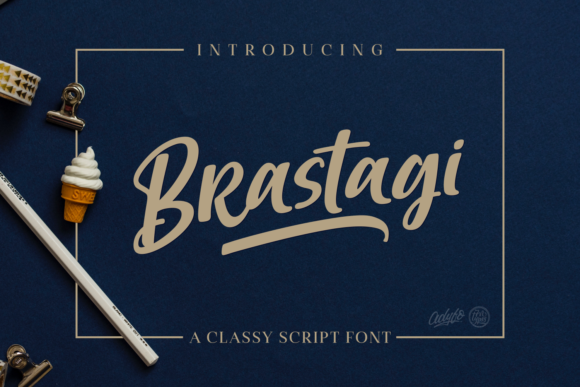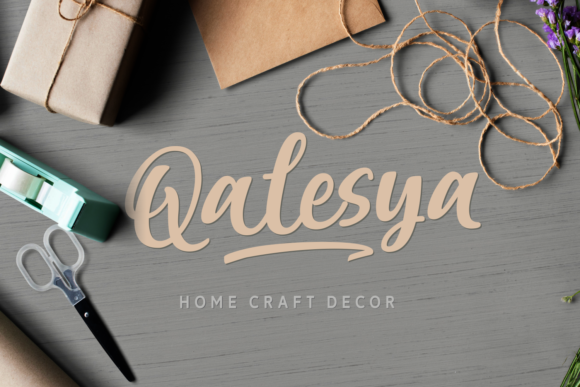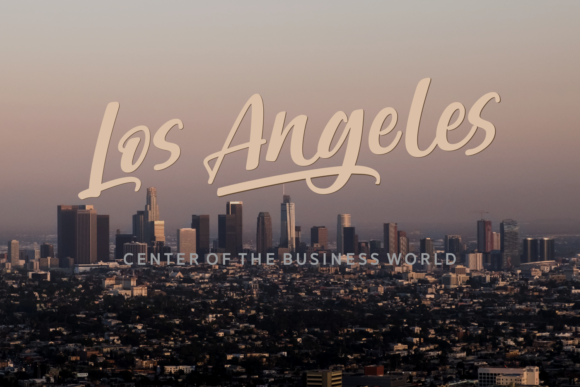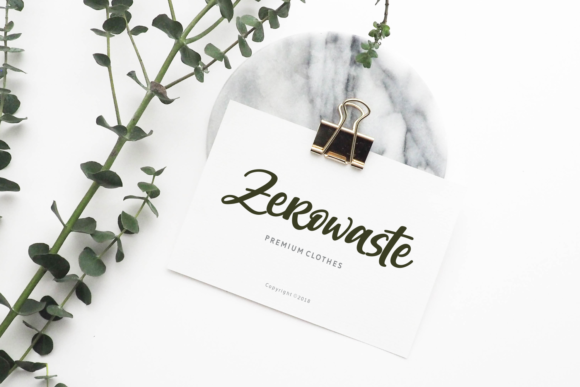
Brastagi Font
About Brastagi Font
The Brastagi is a classy script font. Its bold letters have a great readability and will add a modern, luxurious feel to your designs.